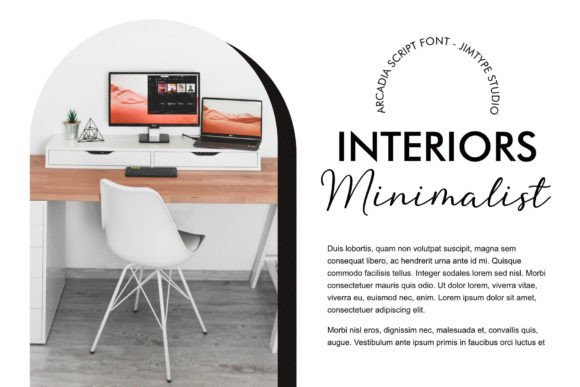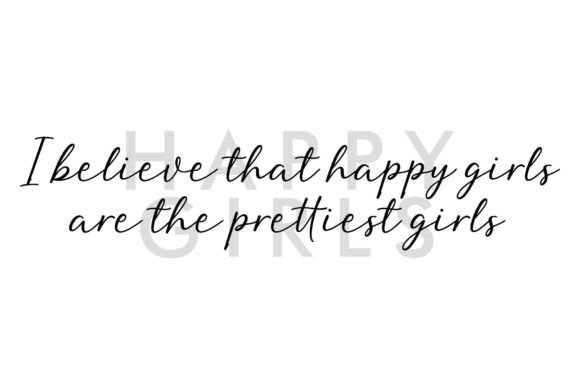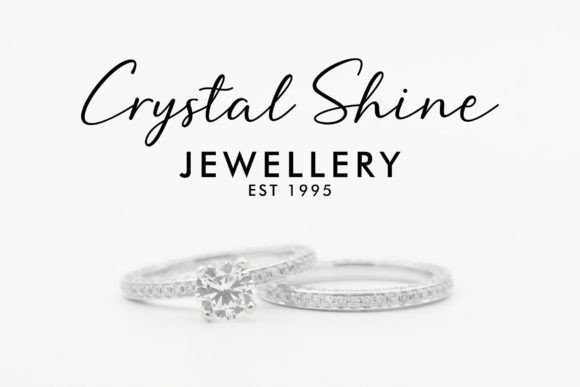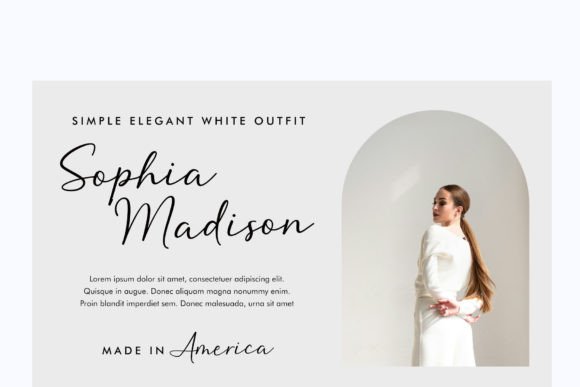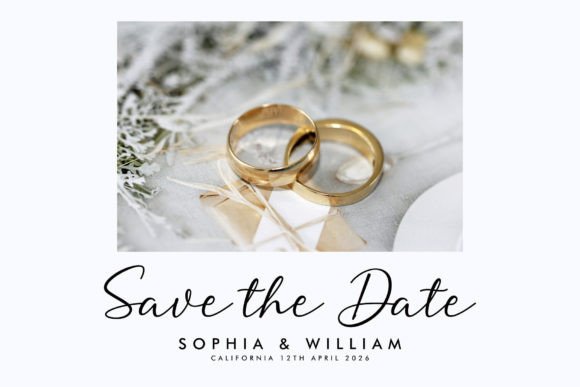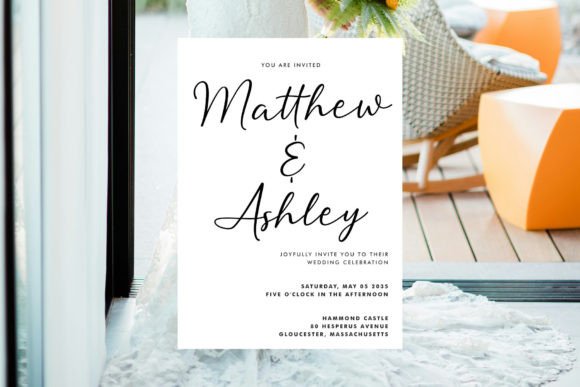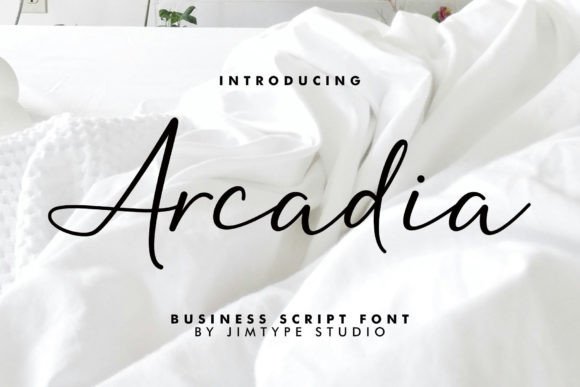
Introducing Arcadia Font: Elevate Your Designs with Elegance and Class
In the world of design, typography plays a crucial role in conveying the tone and personality of a brand. A well-chosen font can make all the difference in creating a lasting impression on your audience. If you’re looking for a font that exudes elegance and class, look no further than Arcadia Font. This stunning new script font is designed to enhance your branding, adding a touch of sophistication and modernity to your projects.
The Arcadia Font Advantage
Arcadia Font boasts smooth curves and silky smooth edges, making it perfect for designs that demand attention to detail. Its elegant and classy appearance makes it an ideal choice for a wide range of applications, from branding and social media to product design, advertising, and weddings. With Arcadia Font, you can add a touch of luxury to your designs, setting them apart from the competition.
Whether you’re a designer, craftsperson, or business owner, Arcadia Font is a versatile solution that can be used across various platforms. Here are some of the ways you can utilize Arcadia Font:
- Branding: Create a lasting impression with Arcadia Font, perfect for logos, business cards, and letterheads.
- Social Media: Elevate your social media presence with eye-catching graphics and posts that showcase your brand’s personality.
- Product Design: Add a touch of elegance to your product packaging, labels, and marketing materials.
- Advertising: Create stunning ad campaigns that grab attention and leave a lasting impression.
- Weddings: Make your special day even more memorable with beautiful wedding invitations, stationery, and decorations featuring Arcadia Font.
Why Choose Arcadia Font?
With so many fonts available, why choose Arcadia Font? Here are just a few reasons why designers and crafters love Arcadia Font:
- Elegance and Class: Arcadia Font is designed to add a touch of sophistication to your designs, making it perfect for projects that demand elegance and class.
- Versatility: Use Arcadia Font across various platforms, from digital to print, and across different industries.
- Easy to Read: Arcadia Font is clear and easy to read, making it perfect for body text and headlines.
- Unique and Memorable: Arcadia Font is a unique and memorable font that will help your designs stand out from the competition.
Tips for Using Arcadia Font
To get the most out of Arcadia Font, here are some tips to keep in mind:
- Pair with Other Fonts: Experiment with pairing Arcadia Font with other fonts to create a unique and visually appealing combination.
- Use for Headlines and Titles: Use Arcadia Font for headlines and titles to add a touch of elegance and class to your designs.
- Experiment with Colors: Try out different colors and textures to add depth and interest to your designs featuring Arcadia Font.
In conclusion, Arcadia Font is a stunning new script font that is perfect for designers and crafters looking to add a touch of elegance and class to their projects. With its smooth curves, silky smooth edges, and versatile design, Arcadia Font is a complete solution for projects that demand attention to detail and sophistication. Whether for branding, social media, product design, advertising, or weddings, Arcadia Font ensures your designs shine with elegance and class.